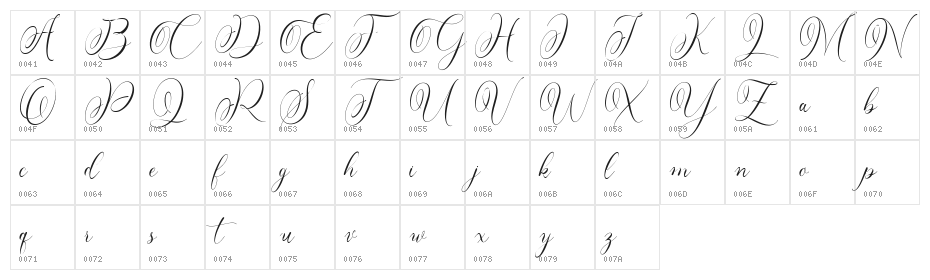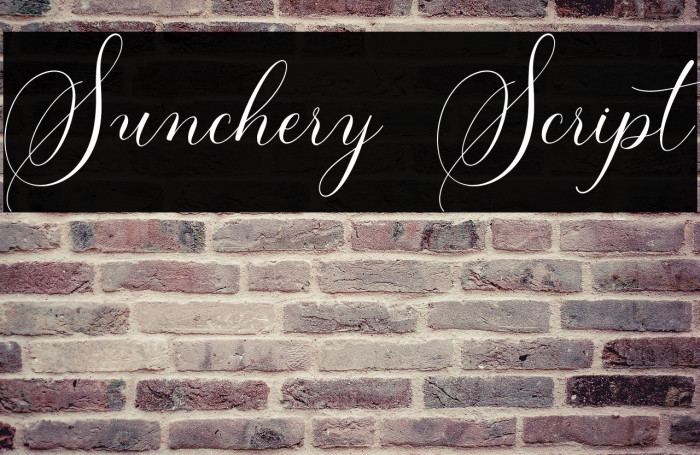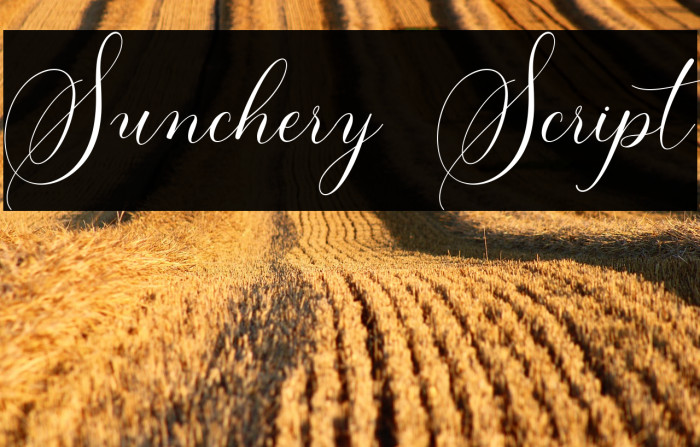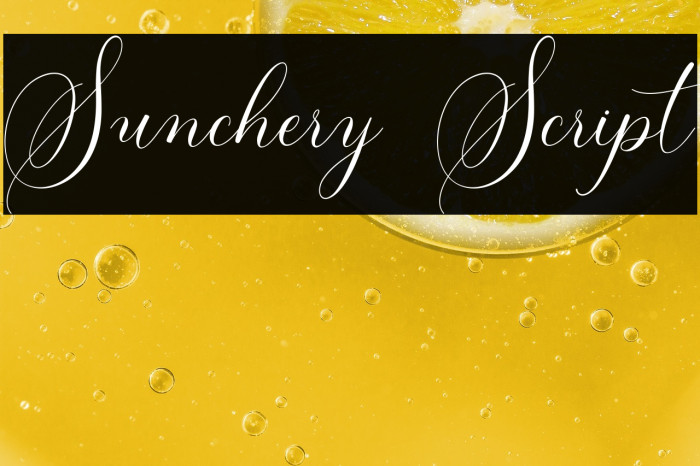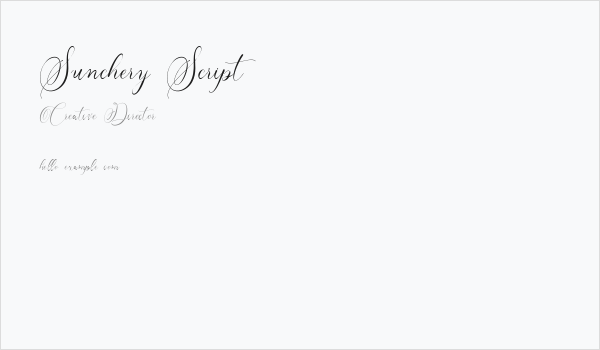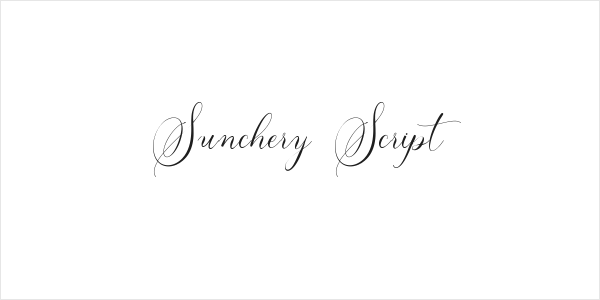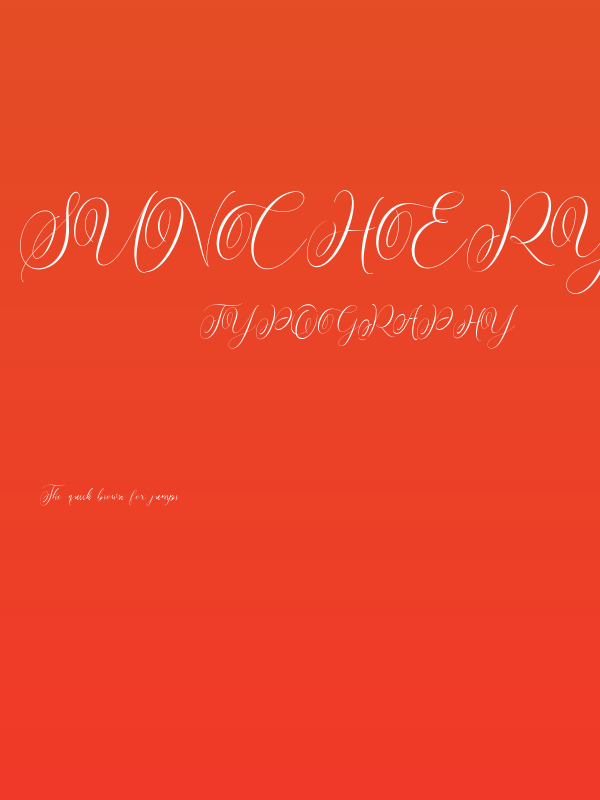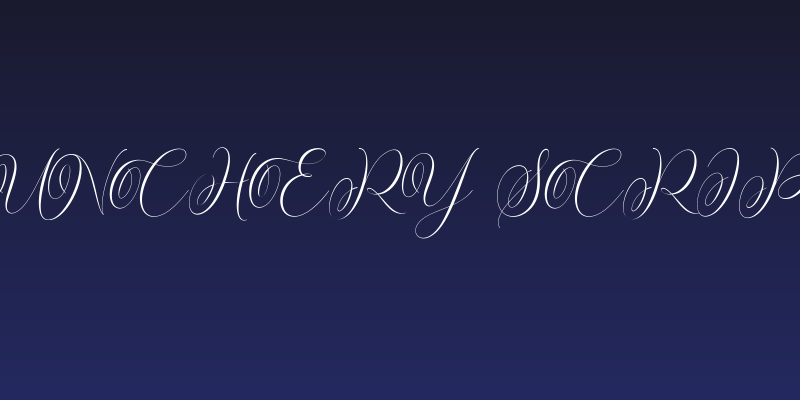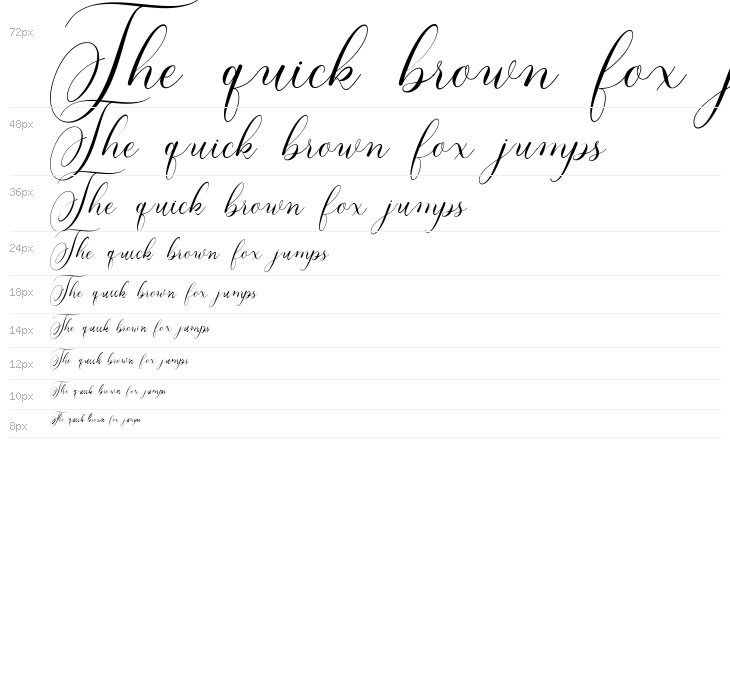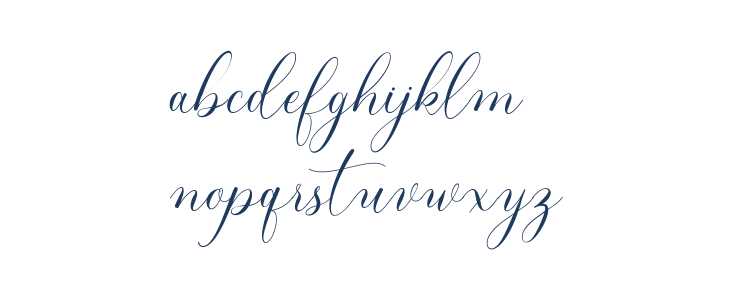
Sunchery Script Font
Sunchery Script Description
This elegant script font features a flowing, cursive style with intricate loops and swashes, giving it a sophisticated and graceful appearance. The uppercase letters are particularly ornate, with elaborate flourishes that add a touch of luxury and refinement. The lowercase letters maintain a consistent flow, enhancing readability while retaining the decorative charm. The font's delicate lines and curves create a sense of movement and fluidity, making it ideal for formal invitations, branding, and other projects that require a touch of elegance. Its artistic flair and attention to detail make it stand out as a stylish choice for creative designs.
| Overall Style | Elegant, Decorative |
| Use Case | Invitations, Branding, Decorative text |
| Proposed Projects | Ideal for wedding invitations, luxury branding, greeting cards, and elegant stationery. |